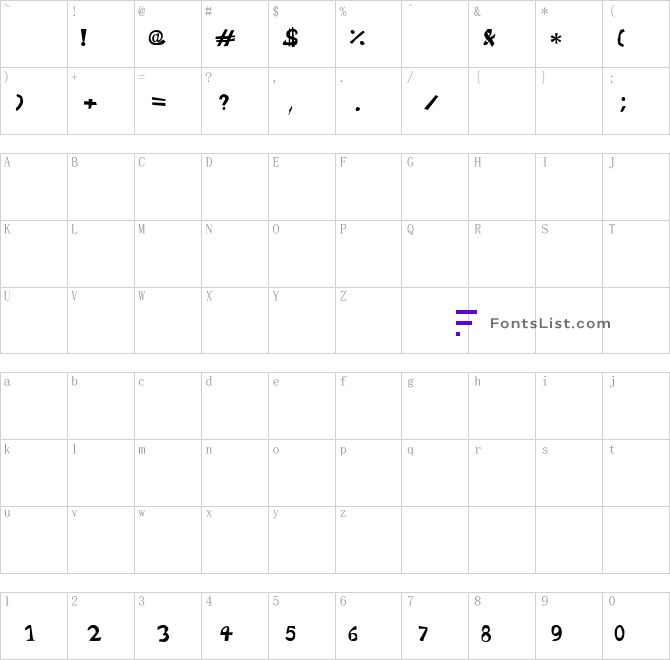
- Font Name:Dakick
Dakick.ttf is a very beautiful artistic font, Dakick.ttf is widely used in the design and printing of various books and pictures,Dakick.ttf has a strong visual impact,Dakick.ttf is a commonly used font in newspapers, magazines and books, and is used in posters, e-commerce Poster design, store design, logo design, font design and other fields.Dakick.